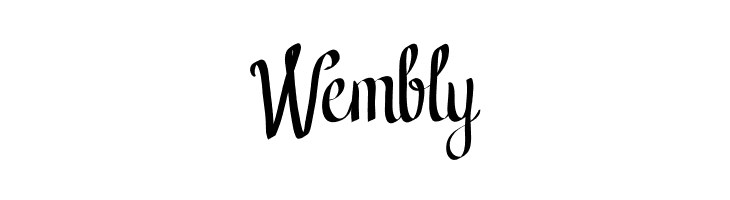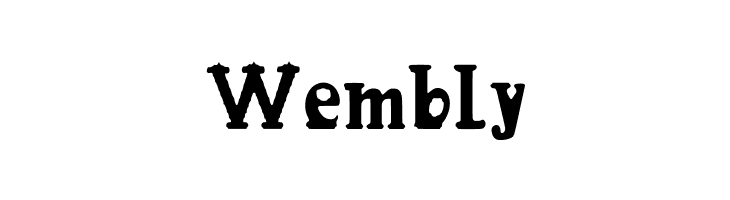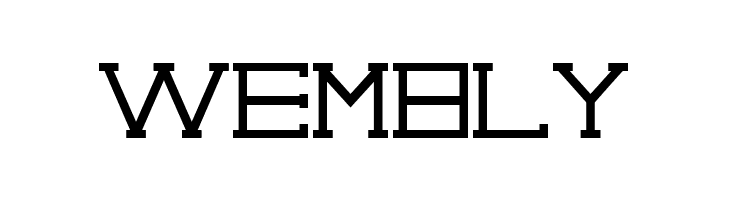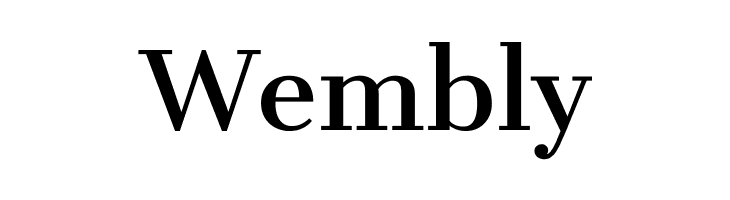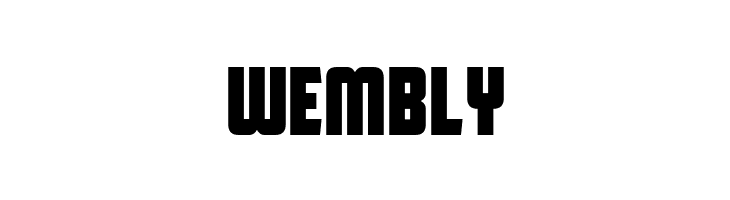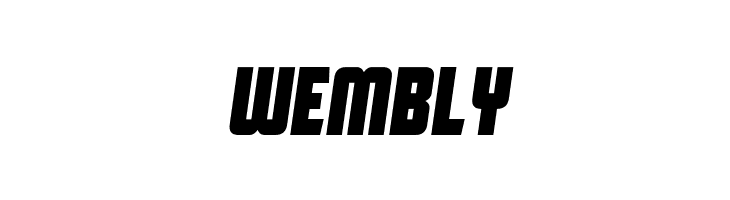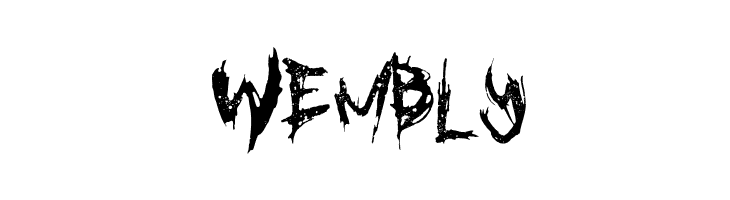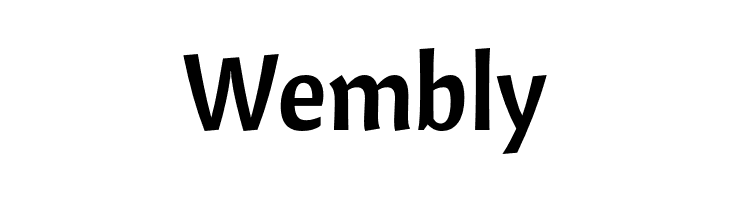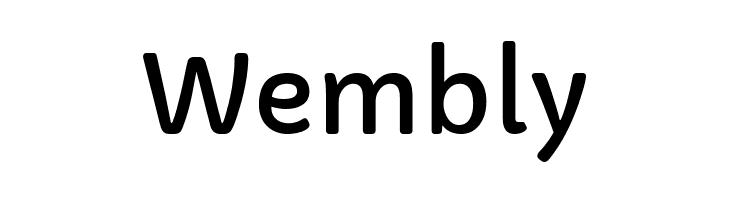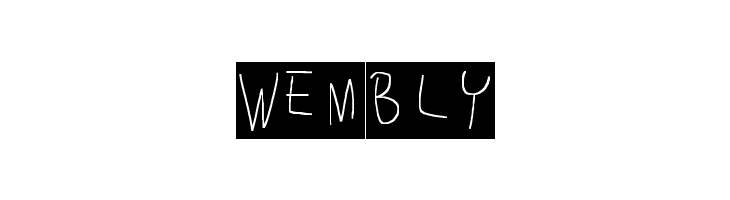
A decorative, gothic-inspired font with sharp, jagged edges and pointed serifs.
A bold, italic font with a dripping, candle-like effect.
A bold, dripping font with an eerie, horror-inspired style and italic slant.
A bold, dripping font with a spooky, wax-like appearance.
An elegant, flowing script font with bold, cursive letterforms.
An elegant script font with flowing, cursive letters and a refined appearance.
A bold, distressed font with jagged edges and a grunge-like, rebellious aesthetic.
A bold, geometric font with a strong, modern presence.
A classic serif font with high contrast and elegant strokes.
A bold, modern font with a strong presence and classic elegance.
A modern, clean, and slightly condensed font with bold uppercase and friendly lowercase letters.
A bold, italicized font with a dynamic and modern style.
A bold, blocky font with a strong, modern presence.
A gothic-inspired serif font with sharp, angular serifs and a strong vertical emphasis.
A playful, handwritten font with irregular strokes and a casual vibe.
A modern sans-serif font with smooth curves and balanced proportions.
A bold, distressed font with a scratched, edgy appearance.
A modern, geometric font with clean lines and rounded edges, perfect for a futuristic look.
A modern, slanted font with consistent stroke width and a dynamic appearance.
An artistic script font with flowing, interconnected letterforms and high contrast.
A bold, angular font with a futuristic and edgy design.
A bold serif font with strong vertical strokes and slightly curved serifs, ideal for impactful headlines.
A bold, italic serif font with a classic yet modern appeal.
An elegant serif italic font with smooth curves and balanced stroke contrast.
A bold, modern sans-serif font with a clean and impactful style.
A bold, modern font with clean lines and strong presence.
A bold, italic font with a dynamic and assertive style.